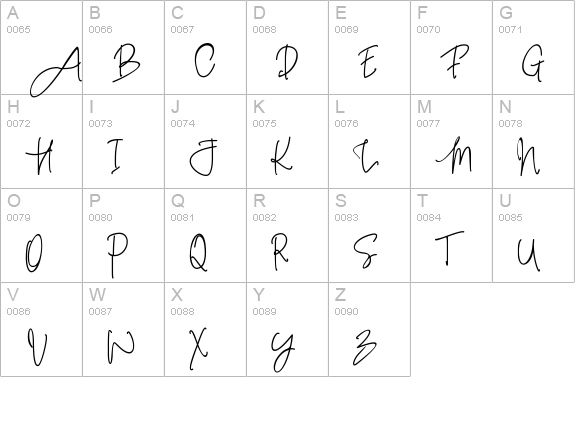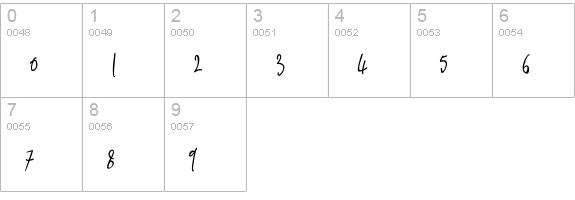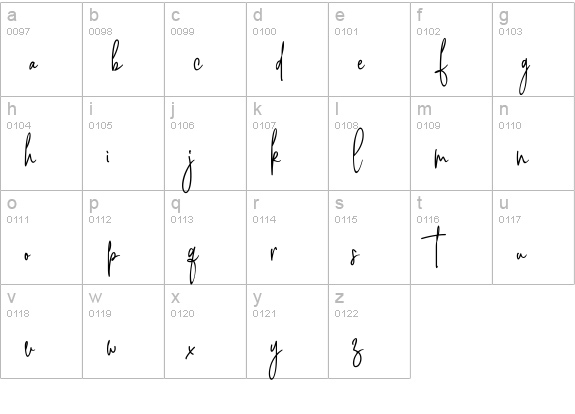
Pink Script Font Details
Pink Script is a free for personal use font in the Script > Handwritten category, designed by aldedesign. It has been downloaded 300 times and is available for Windows, Mac and Linux.
Introducing Pink Script, a charming and whimsical font that will add a touch of elegance to your designs. This delightful typeface features graceful swashes and intricate details, perfect for creating invitations, greeting cards, and more. With its playful yet sophisticated appearance, Pink Script is sure to make your projects stand out.